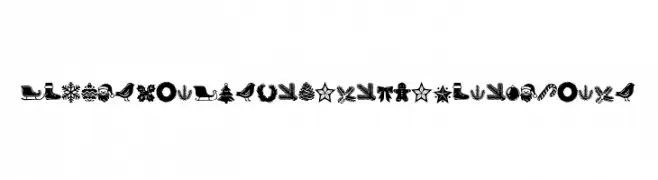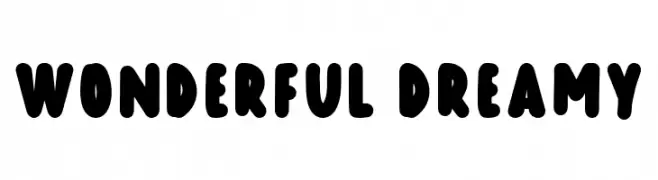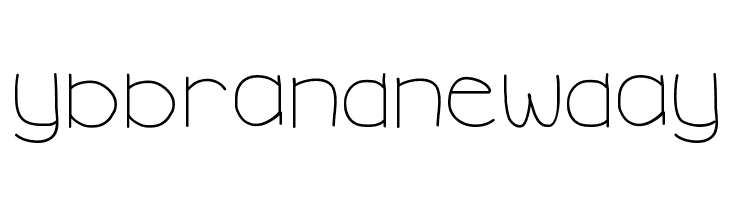
A festive collection of bold, decorative Christmas symbols perfect for holiday projects.
A playful, handwritten font with smooth, flowing curves and a whimsical style.
A playful, bold font with rounded, bubbly characters and a whimsical style.
A lively, handwritten font with fluid, cursive strokes.
A fluid and elegant handwritten script with a personal touch.
An elegant, flowing script font with ornate uppercase and smooth lowercase letters.
Playful handwritten font with tall, narrow letters.
An elegant, flowing script font with a natural handwriting style.
A bold, rounded sans-serif font with smooth curves and uniform strokes.
An elegant, flowing script font with cursive and calligraphic elements.